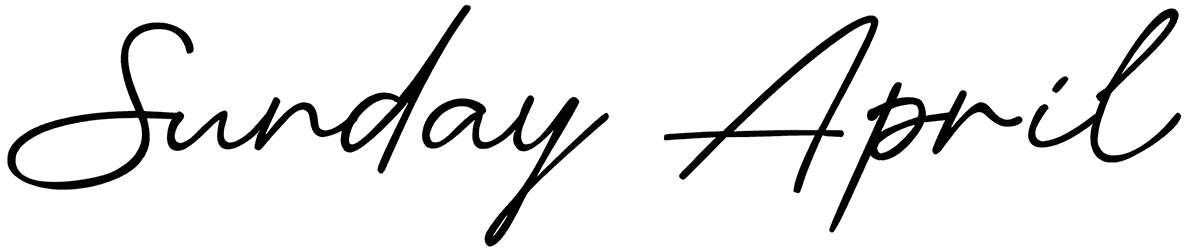
Sunday April Font
With this appealing handwritten font, you have a nice chance to have a mesmerizing presentation. This thank you font includes smooth and natural characters that can be used for countless projects from formal to informal ones. Put the Sunday April font on your next creative projects, such as a boutique sign, and show your unique taste.